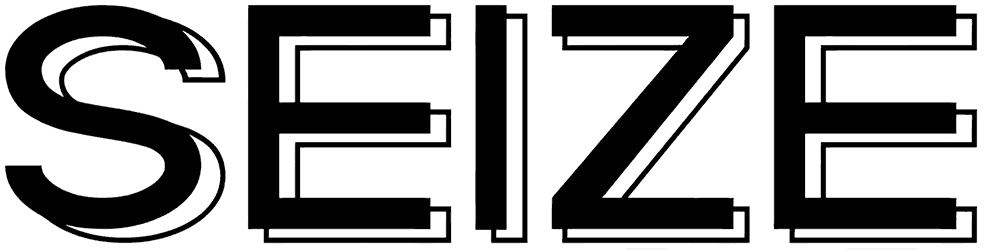
Seize Font
A creative sans serif font such as Seize can be your superior game-changer in the field of designing remarkable and timeless graphic content, ranging from movie posters, branding, magazines, and social media posts, to the user interface of applications.
Considering its magical ability in provoking a sense of momentum, modernity, viability, or risk-taking, the lack of numbers would never turn into a problematic shortage. Just in case you require another reliable font, don’t hesitate to visit our rich library.